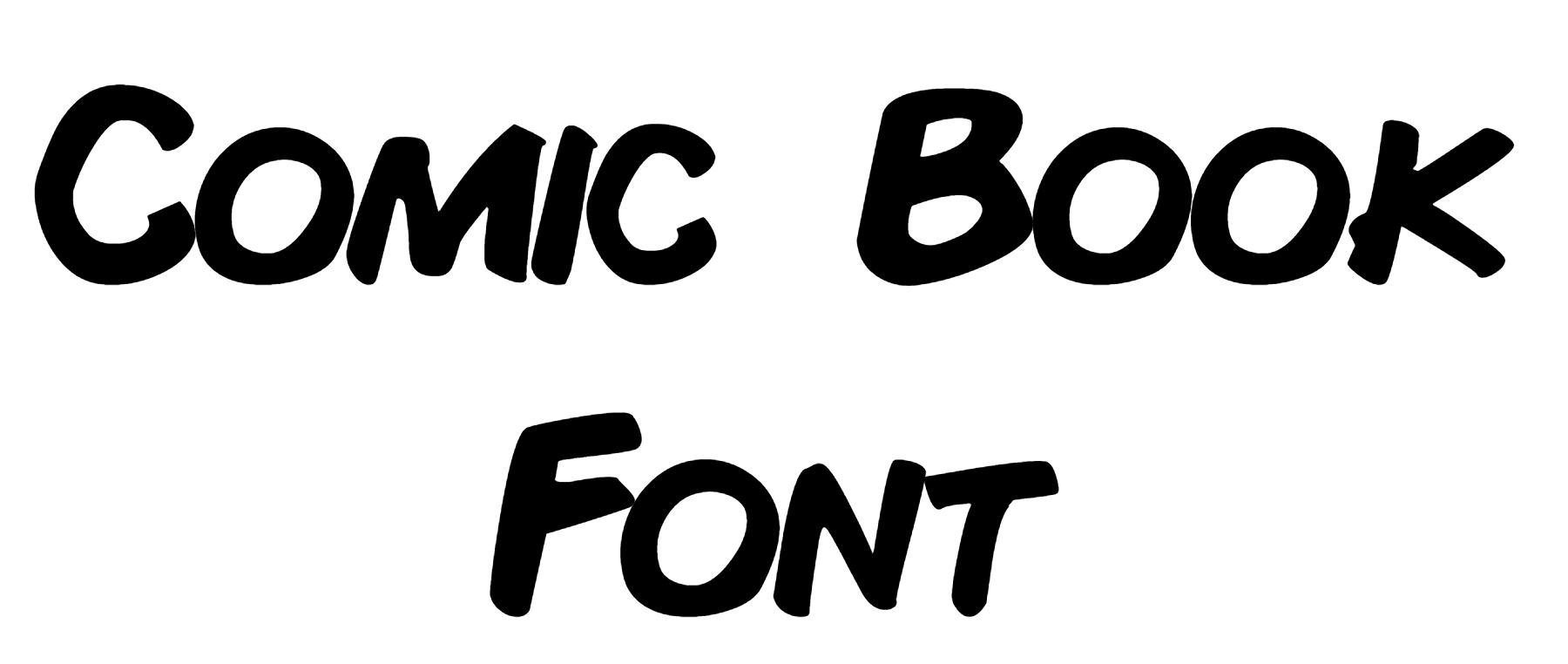
Comic Book
Comic Book is a comic font designed by Neale Davidson and published by Pixel Sagas (2016). It has a cheerful, hand-drawn look that makes people smile before they even read the words. You get four styles in one free ZIP, and the preview above lets you test each one before you download.
- Designer: Neale Davidson
- Publisher: Pixel Sagas
- Category: Comic font
- Font styles: 4 (Regular, Bold, Bold Italic and Italic)
- Glyphs: 250 in the Regular style
What You Can Type With Comic Book
With complete upper and lowercase letters and all ten digits, Comic Book is ready for real wording, not just a single headline. Everyday marks like &, !, ? and @ are there too. Thanks to its accented letters, it also works for Spanish, French, German, Portuguese and Italian, not just English.
Where Comic Book Works Best
Comic Book is a natural fit for comic strips, speech bubbles and playful headings. Its lowercase letters are tall compared to the capitals, which keeps it readable at smaller sizes. Cartoon fonts are great for short, fun lines. If you place it over a busy photo, add a thick outline or a drop shadow so it stays readable. Because the family has more than one style, you can mix them in a single design for headings, subheadings and highlights.
Who designed Comic Book font?
Comic Book was designed by Neale Davidson and published by Pixel Sagas. The copyright line inside the font is dated 2016. DafontStyle has 25 more fonts by Neale Davidson, and a few are linked above.
Does Comic Book support accented letters?
Yes. Comic Book includes the accented letters needed for Spanish, French, German, Portuguese and Italian, so it works for more than just English.